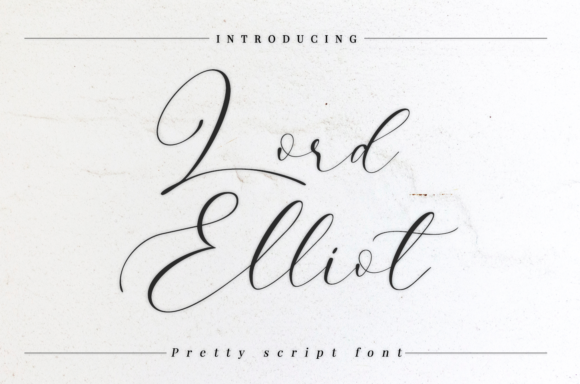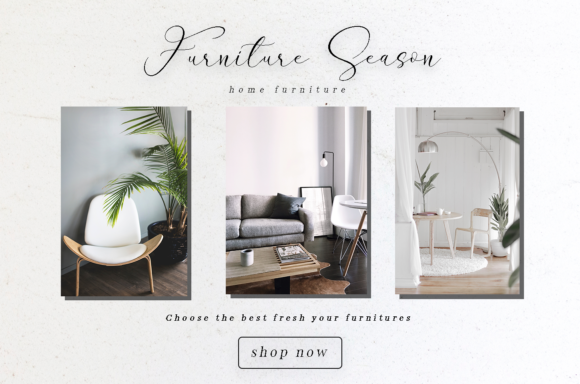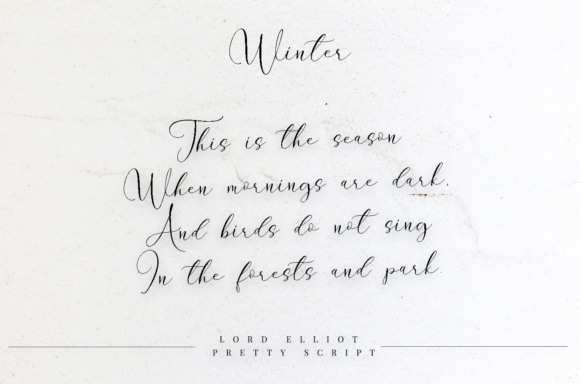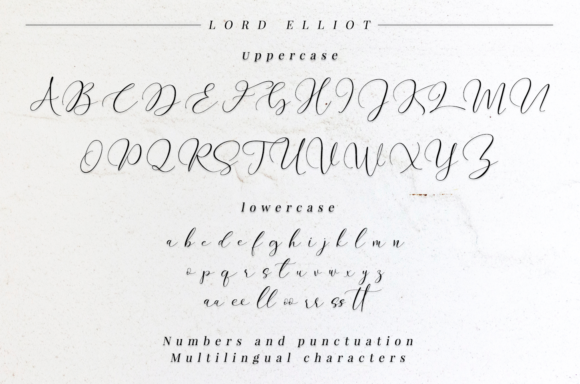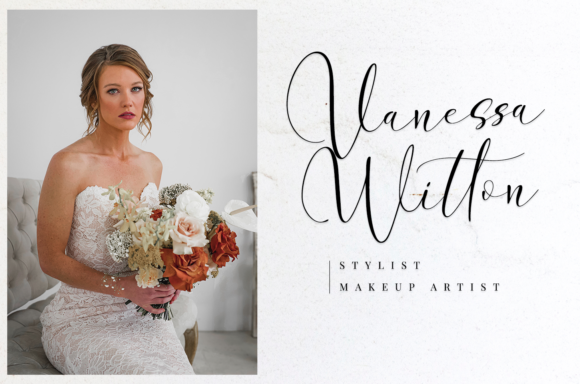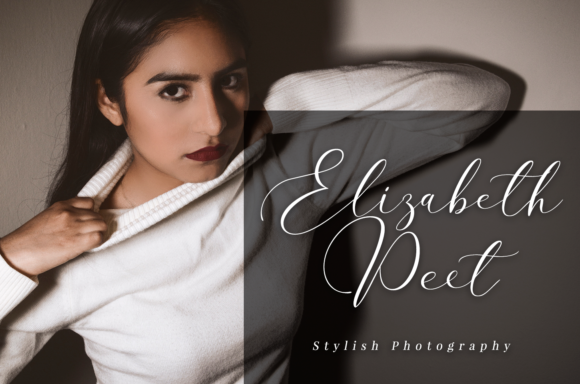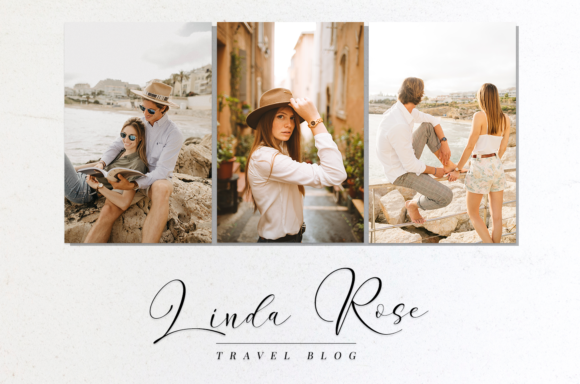
HomeScript FontsLord Elliot Font Script Fonts Lord Elliot Font FacebookXPinterestWhatsApp Lord Elliot Font Poster 2 Lord Elliot Font Poster 3 Lord Elliot Font Poster 4 Lord Elliot Font Poster 5 Lord Elliot Font Poster 6 Lord Elliot Font Poster 7 About Lord Elliot Font Lord Elliot is a fresh handmade calligraphy font. It is well suited for a variety of crafting projects! DOWNLOAD NOW People also explored Gilliany Font Handmade Font Soffia Script Font Collouse Font Moenier Font Coltan Gea Slab -5 fonts- Font Bety Filberta Font Hello Middlenight Font Rochester Font 389 0 TagsLord Elliot Font Previous articleBalconies FontNext articleAnyhow Font LEAVE A REPLY Cancel reply Comment: Please enter your comment! Name:* Please enter your name here Email:* You have entered an incorrect email address! Please enter your email address here Website: Save my name, email, and website in this browser for the next time I comment. Personal Use Free Mustica Personal Use Free Read more about this font Vanilla Whale Personal Use Free Read more about this font Authurium Personal Use Free Read more about this font Awkward Personal Use Free Read more about this font BLOG Fonts That Capture the Spirit of New York City New York City is more than just a place—it’s an experience, a rhythm, a visual language... 5 Fonts That Will Dominate Design Trends in 2026 Free Fonts Risk: Why Free Fonts Can Be Dangerous for Designers Best Fonts for YouTube Videos: Make Your Thumbnails Stand Out